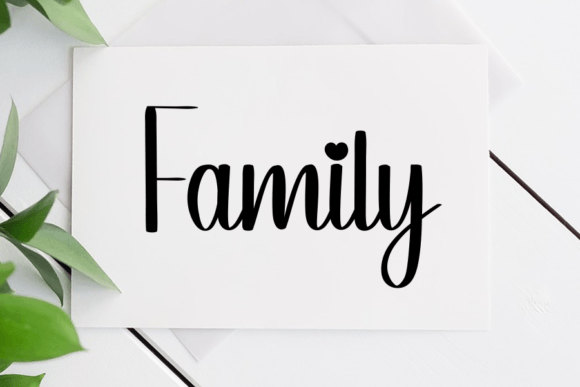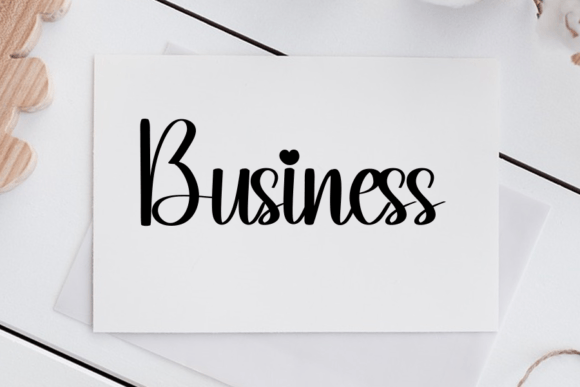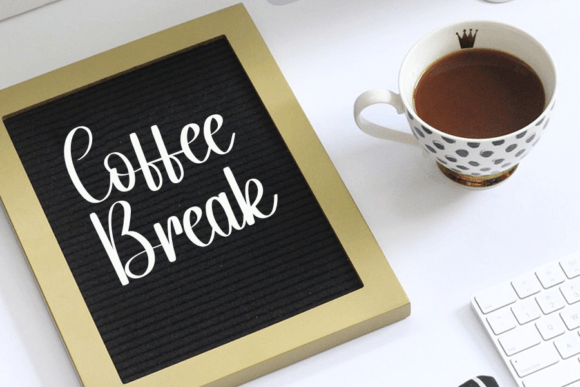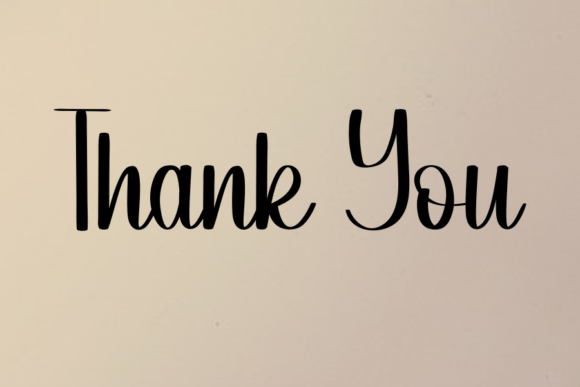
The Perfect Font for the Season
As the holiday season approaches, designers are often tasked with finding the perfect font to capture the warmth and magic of the moment. Whether it’s a festive greeting card or a holiday-themed advertisement, the right font can make all the difference. And that’s where the Holiday Font comes in – a simple, yet elegant handwritten font that’s guaranteed to add a touch of natural charm to your next project.
With its versatility and effortless style, the Holiday Font is a valuable addition to any designer’s toolkit. From headlines to body text, this font is perfect for creating a cohesive and inviting visual identity that’s sure to resonate with your audience. Whether you’re a seasoned pro or just starting out, the Holiday Font is an excellent choice for anyone looking to add a personal touch to their designs.
Holiday Font Key Features
- Unique Characteristics: Holiday Font features a unique blend of traditional and modern elements, making it perfect for creating festive and celebratory designs.
Holiday Font Review
As a designer, I’m always on the lookout for fonts that capture the essence of a particular theme or season. The Holiday Font is one such font that promises to bring a festive touch to your designs. Here’s my honest review.
- Perfect for winter-themed designs: The Holiday Font is ideal for creating a cozy and festive atmosphere in your designs, especially during the winter months.
- Wide range of weights and styles: The font offers various weights and styles, from bold and playful to elegant and sophisticated, giving you plenty of options to choose from.
- Great for headings and titles: The font’s bold and decorative elements make it perfect for creating eye-catching headings and titles.
- Not ideal for body text: While the font is great for headings and titles, it may be difficult to read in body text due to its decorative nature.
- Limited character set: The font’s character set is limited, which may not be suitable for designs that require a wide range of characters.
Overall, I think the Holiday Font is a great addition to any designer’s toolkit, especially for winter-themed designs. While it may have some limitations, its unique and festive style makes it a great choice for creating eye-catching headings and titles. Just be mindful of its limitations when using it for body text or designs that require a wide range of characters.
For a festive touch, use Holiday Font for headings, titles, or even social media graphics.
Use Holiday Font for creative projects, such as greeting cards, gift tags, or holiday-themed illustrations.
Use Holiday Font for presentations, reports, or documents that require a festive touch.
For the most out of Holiday Font, use it for:
- Greeting cards and invitations
- Gift tags and labels
- Holiday-themed social media graphics
- Presentations and reports with a festive touch